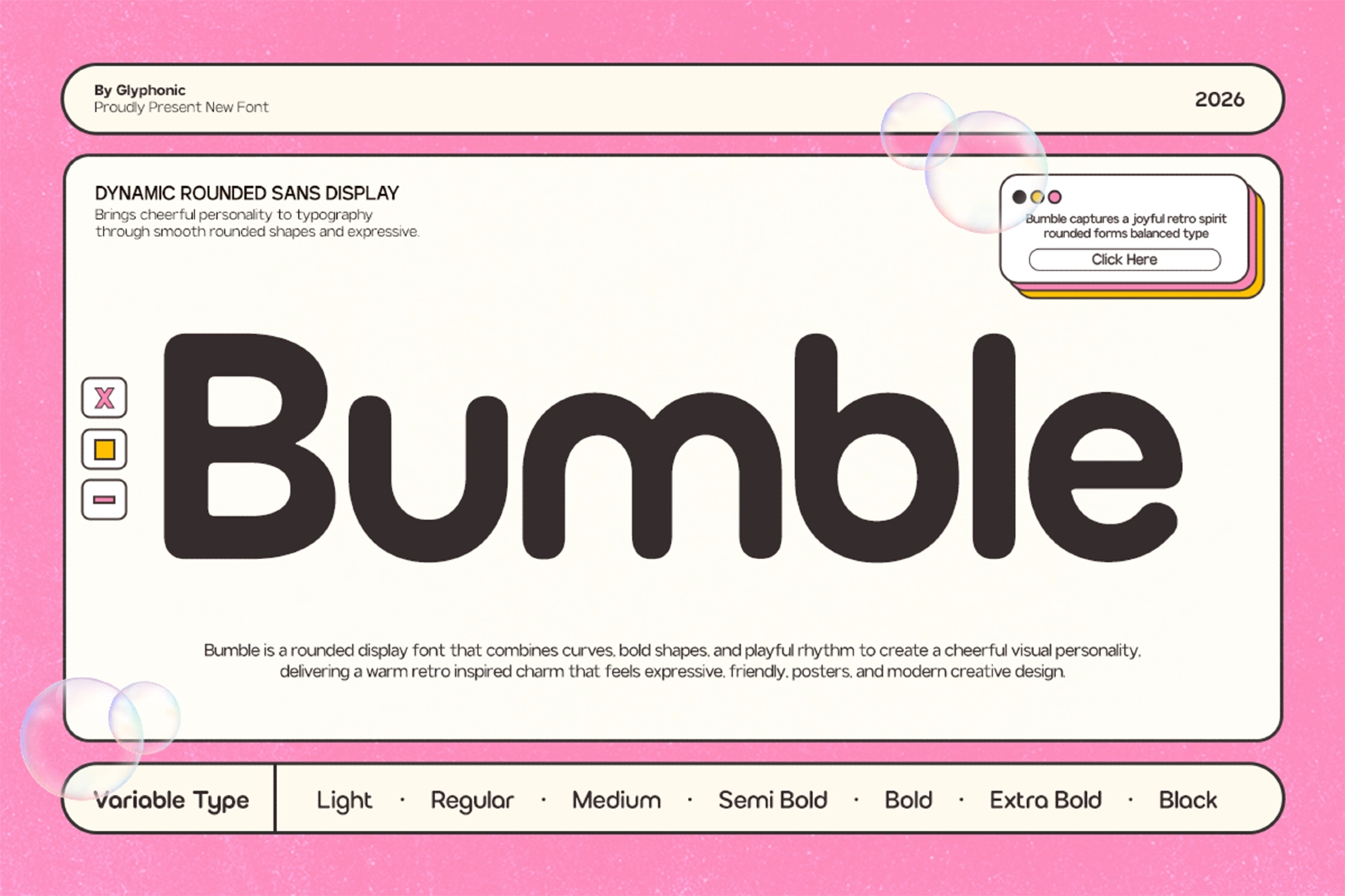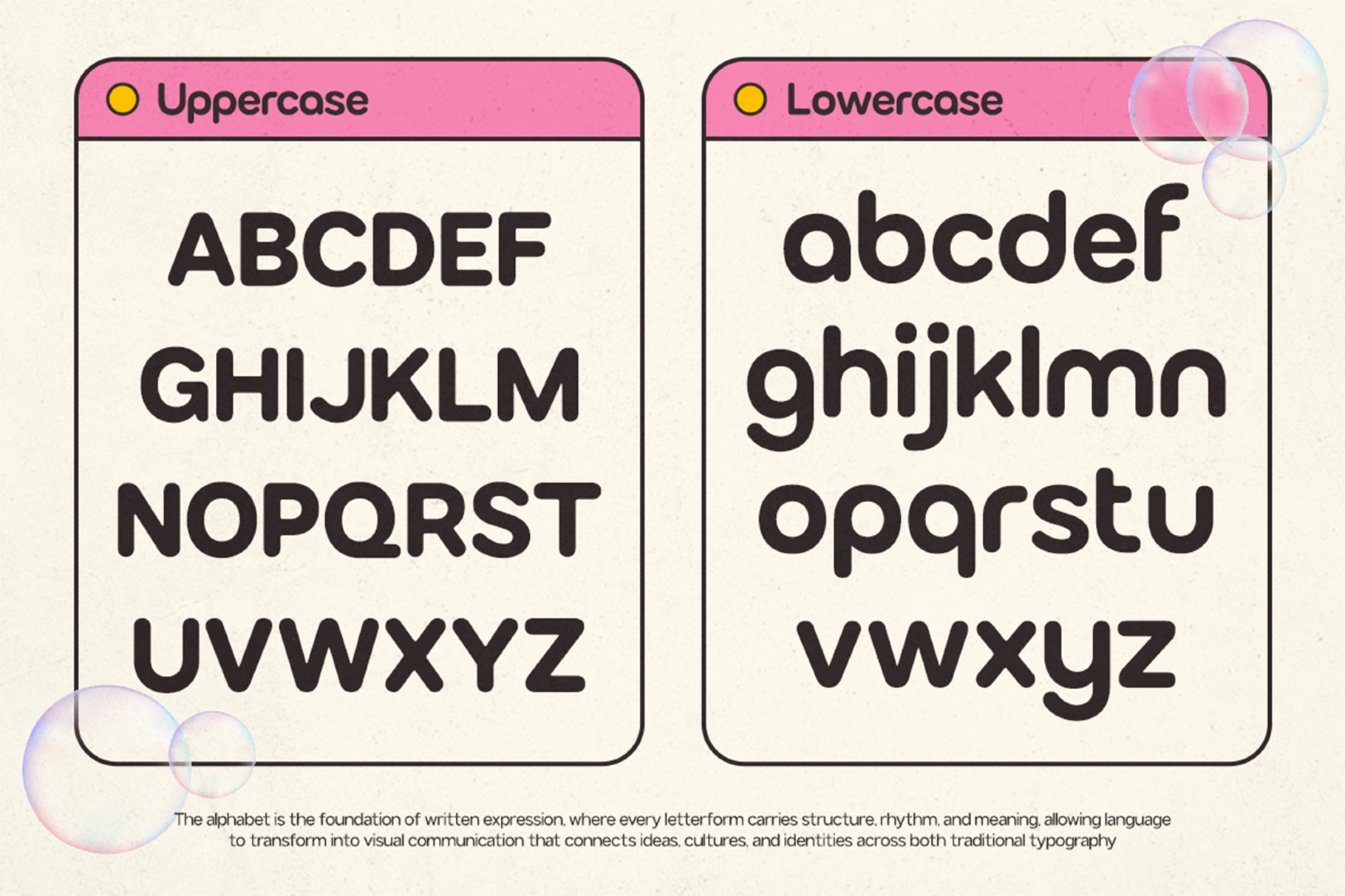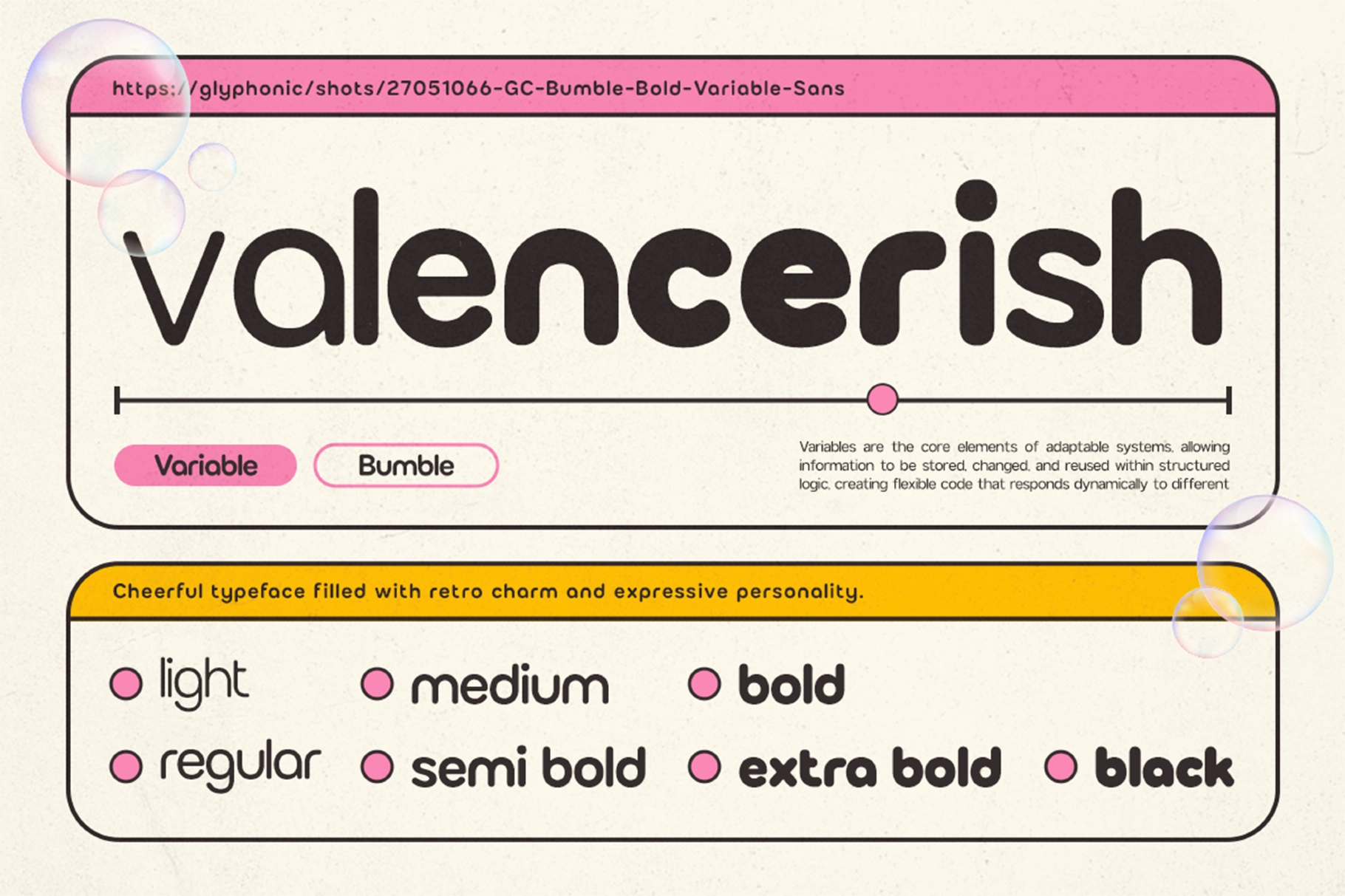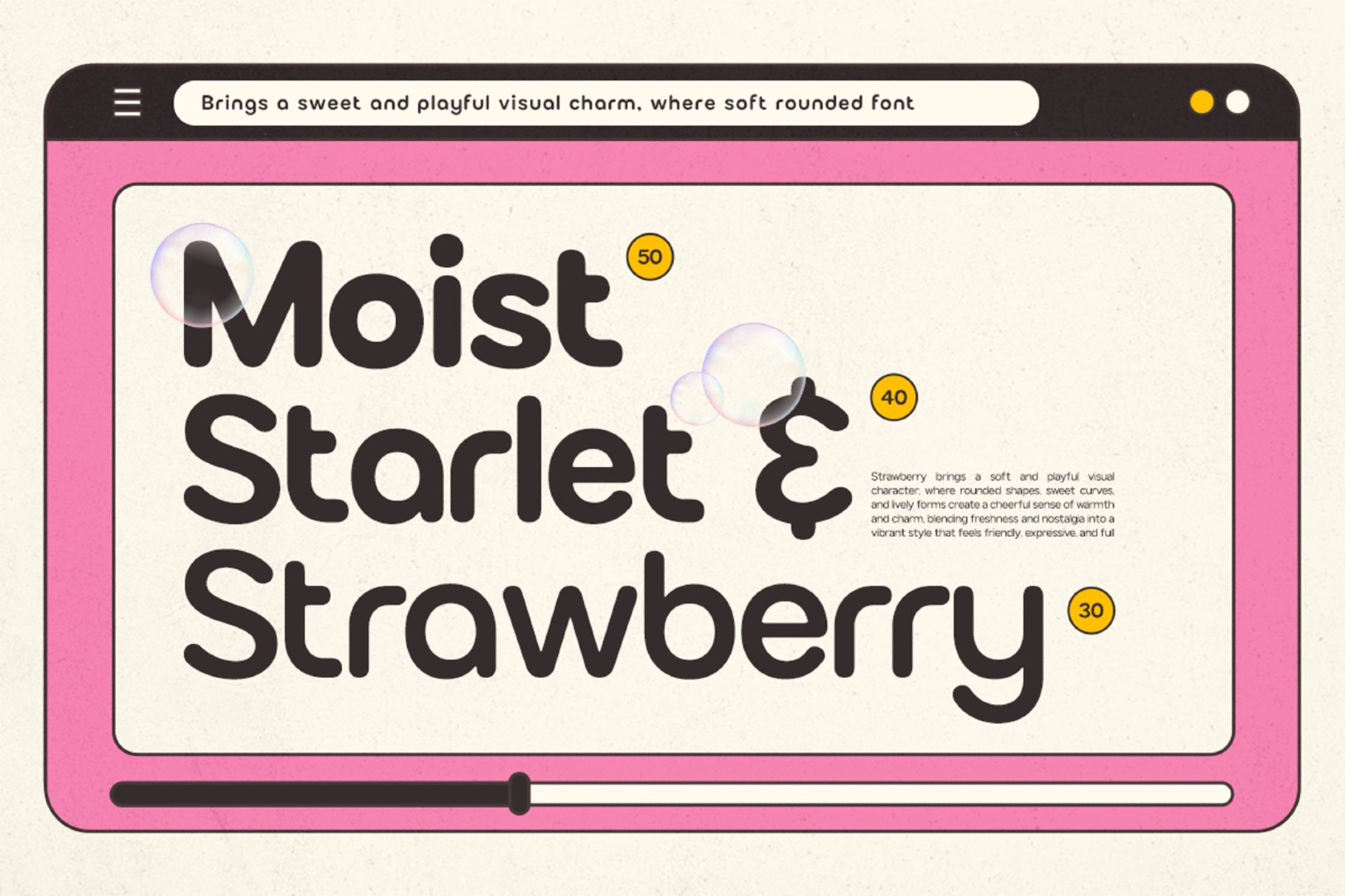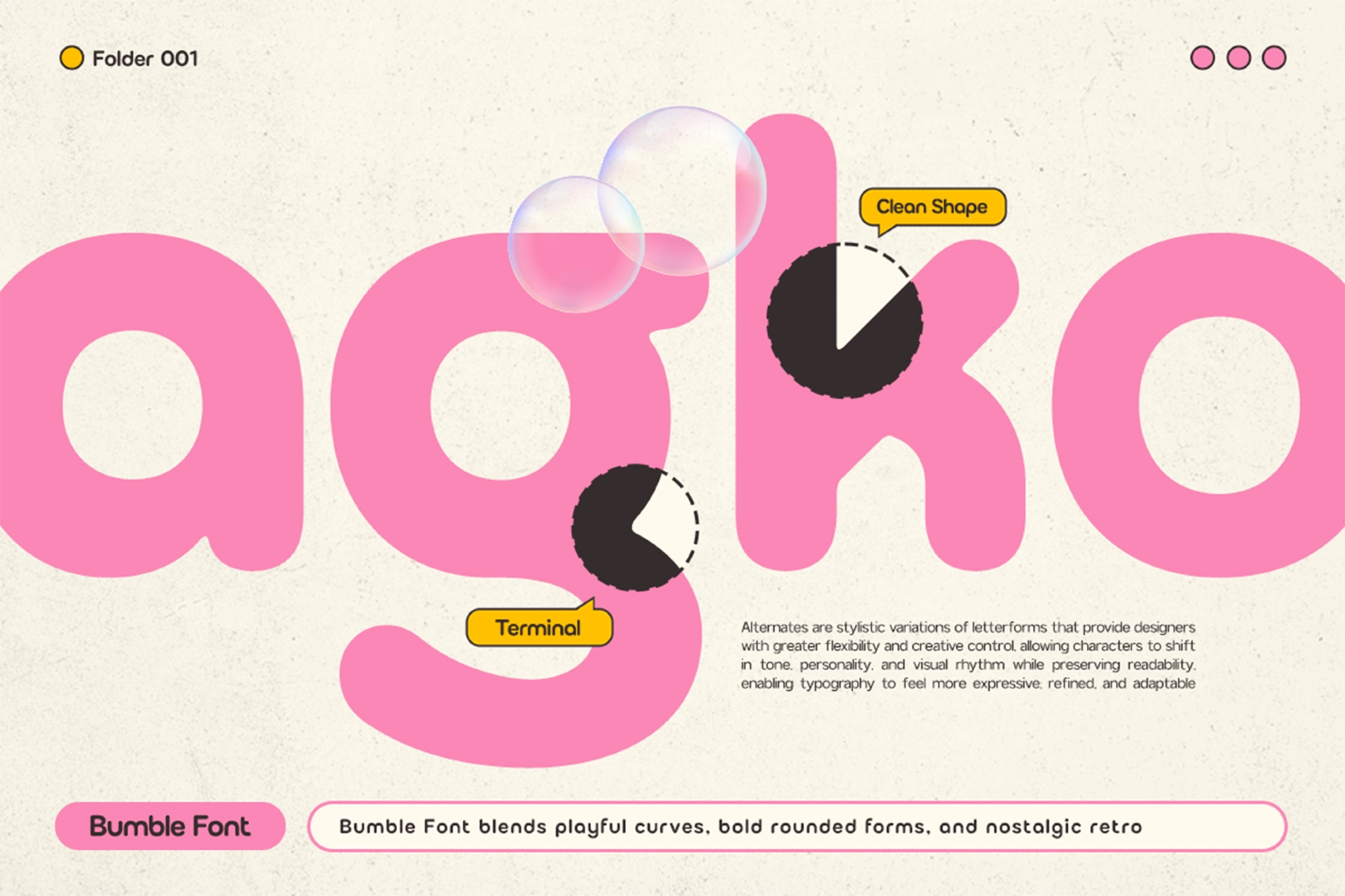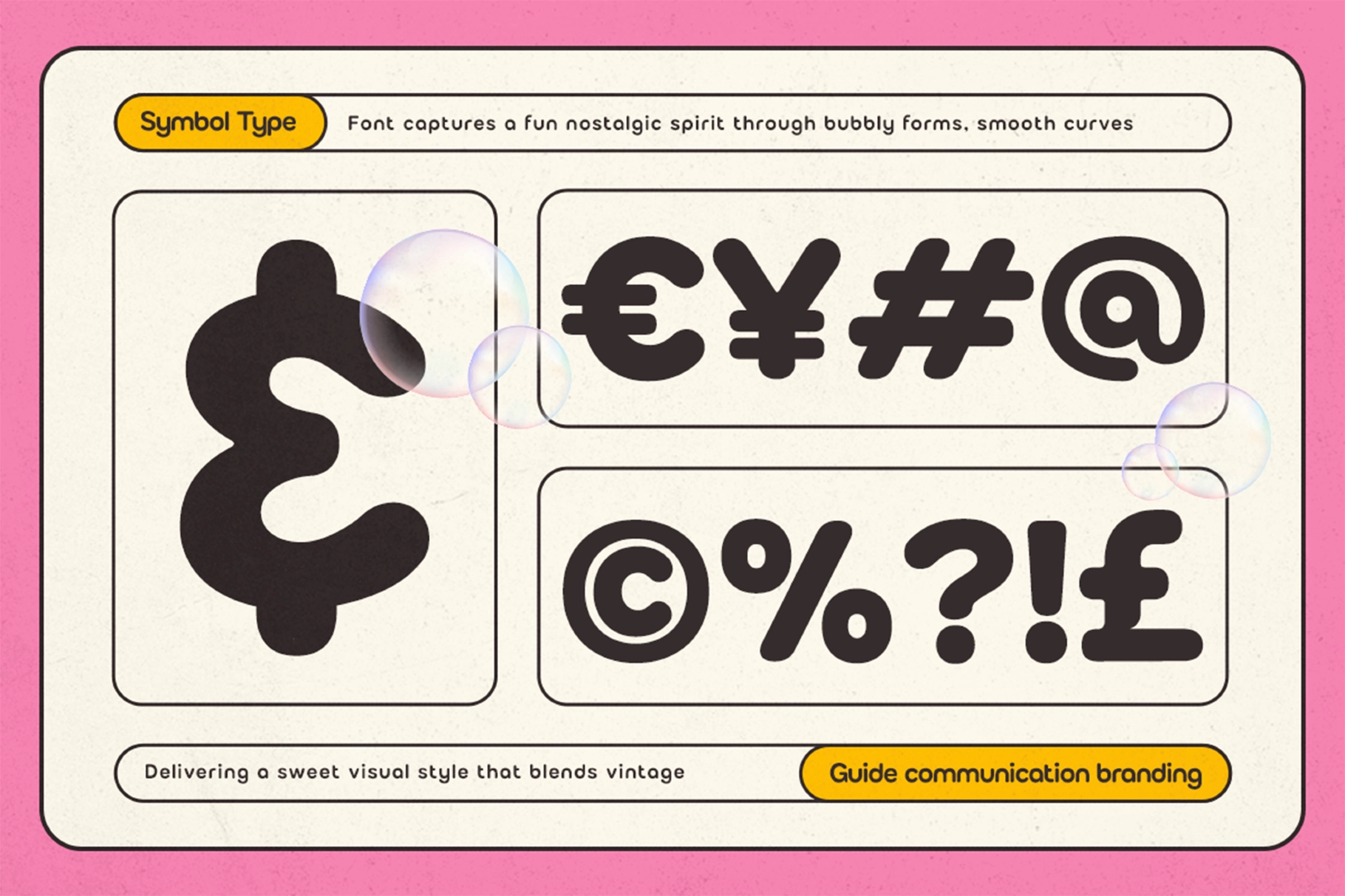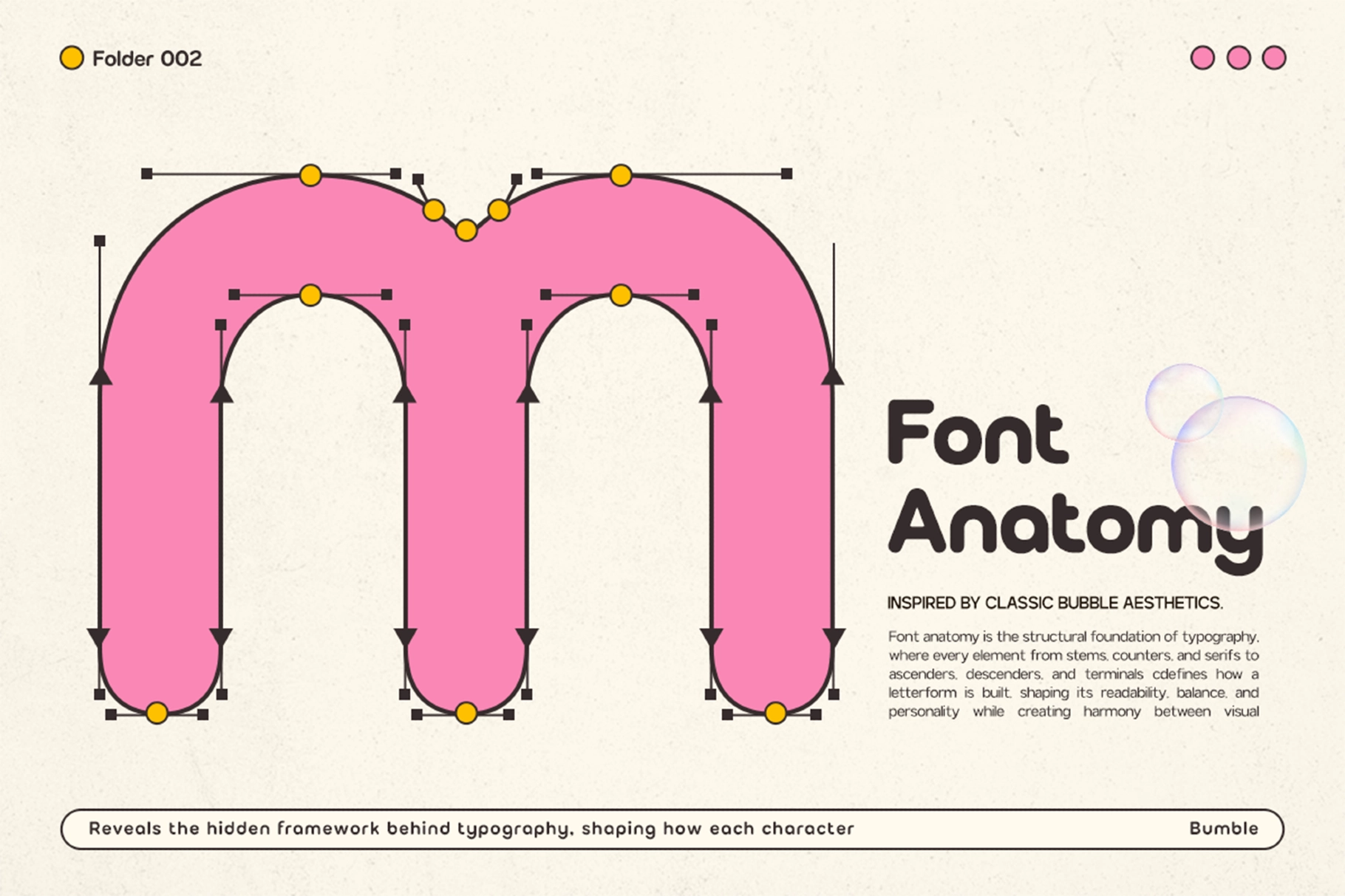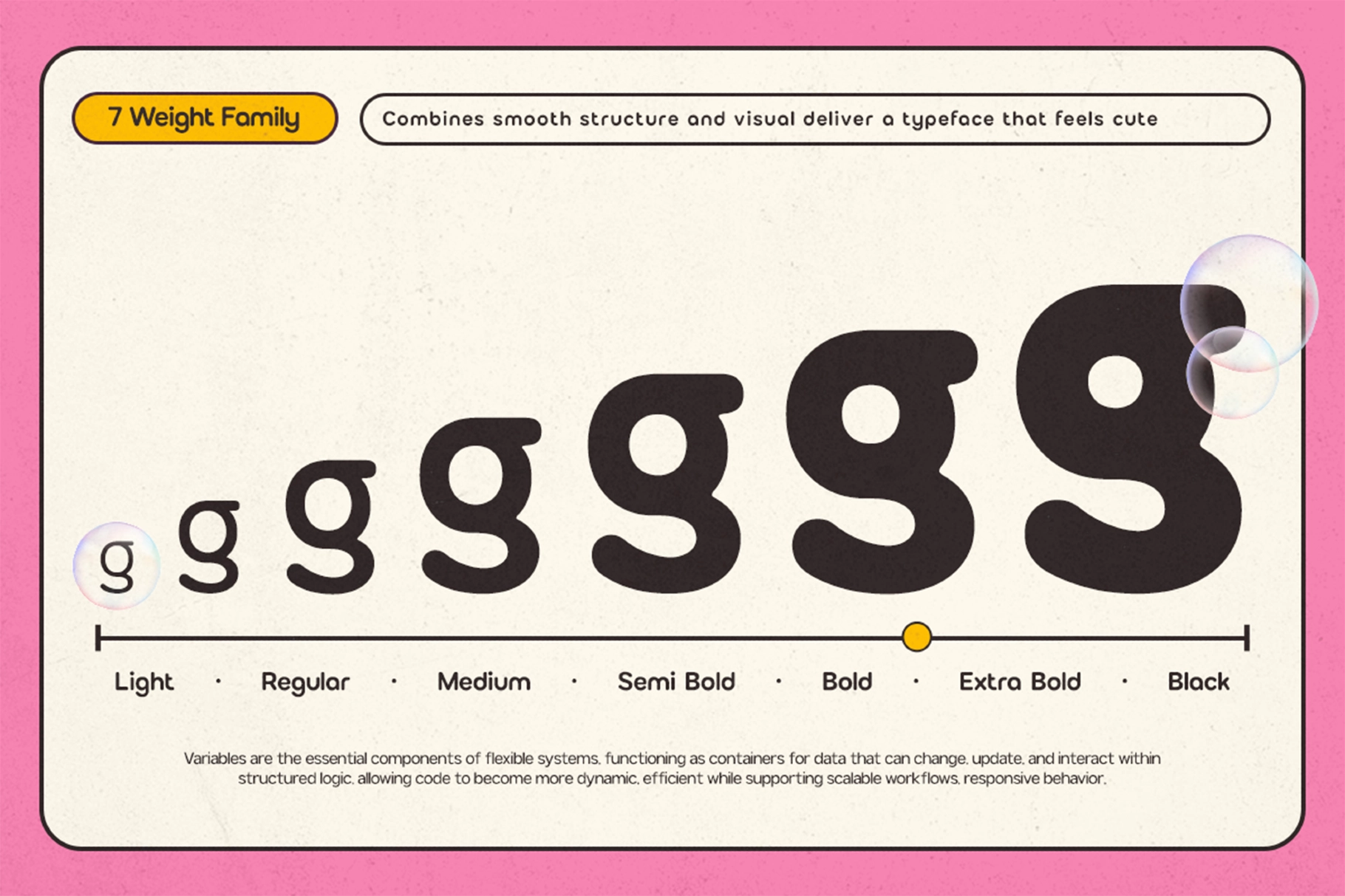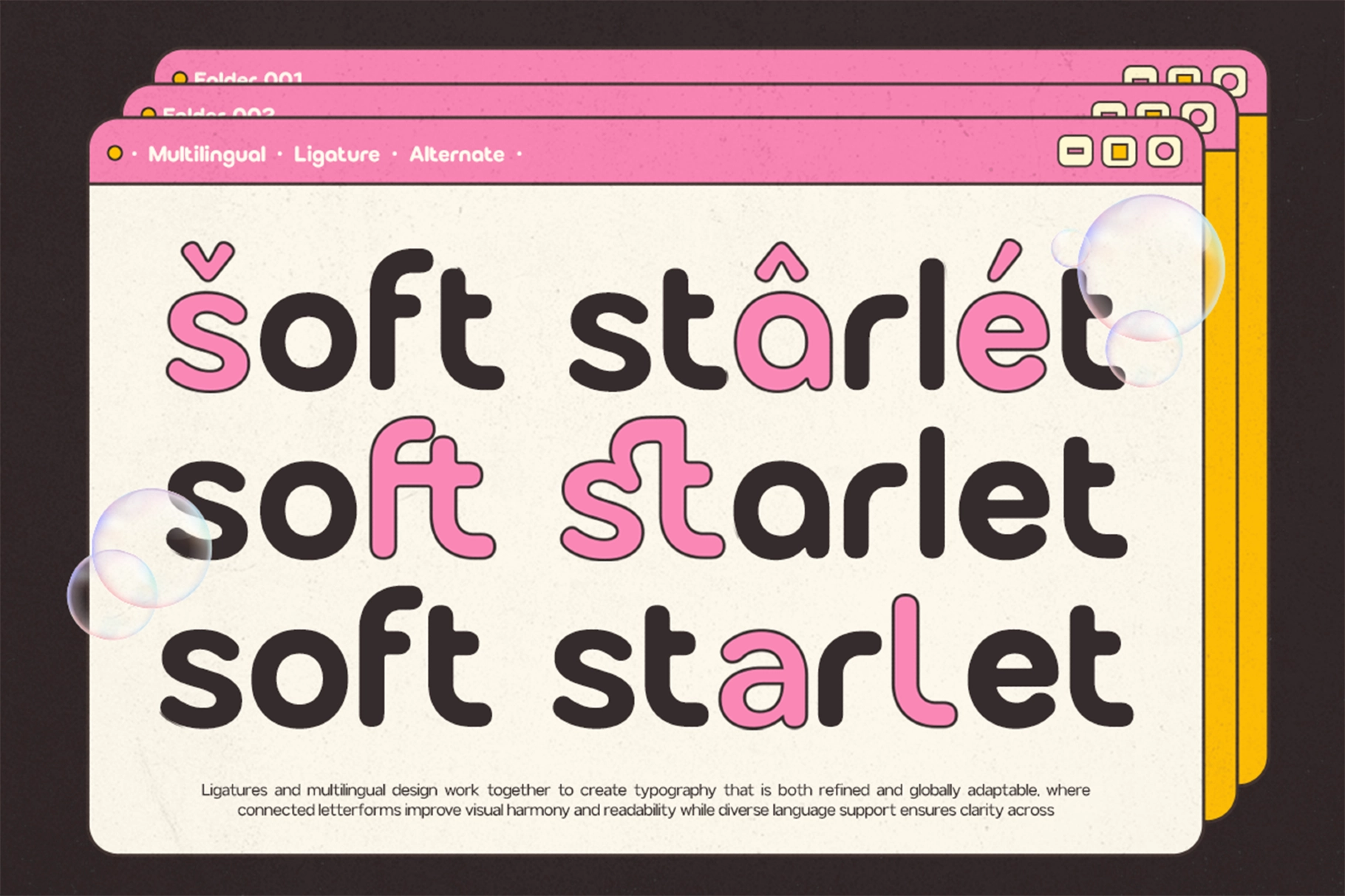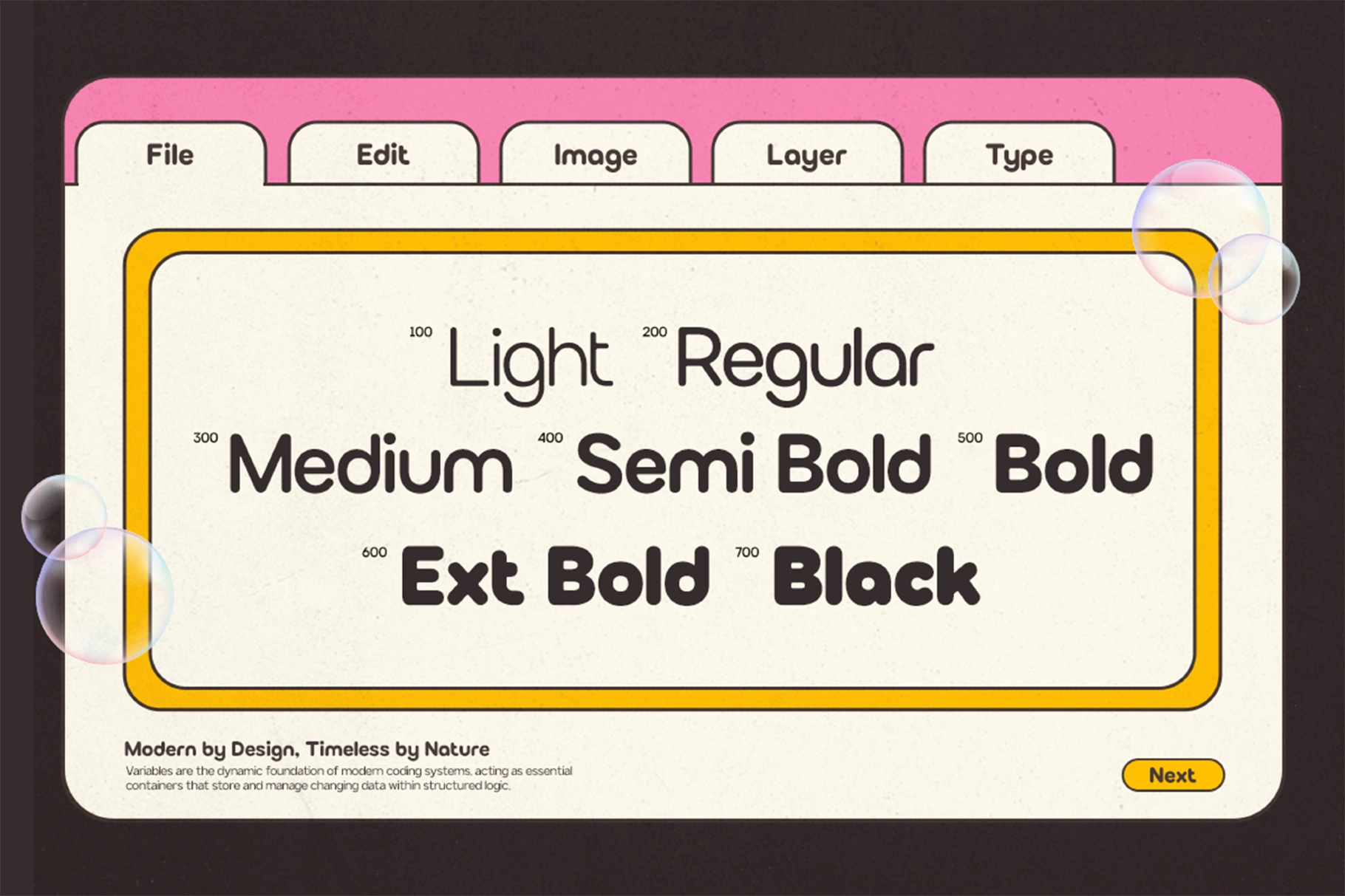
GC Bumble – Rounded Bubble Font
This rounded display font has soft inflated forms, chunky weight, and a candy-colored personality that lands somewhere between bubblegum packaging and a friendly desktop pop-up. Its smooth curves, playful terminals, and seven-weight range make it useful for cheerful headlines, bold brand marks, and layouts that need instant visual sweetness without going full sugar crash.
Bumble works for kids’ branding, snack packaging, toy labels, candy shops, café menus, beauty promos, sticker packs, app graphics, social media headers, event posters, merch design, YouTube thumbnails, and playful editorial titles. The ligatures and alternates add extra bounce to wordmarks, while the multilingual support keeps the family ready for broader design systems.
- 7 Weight Family: Light - Black
- Alternates
- Ligatures